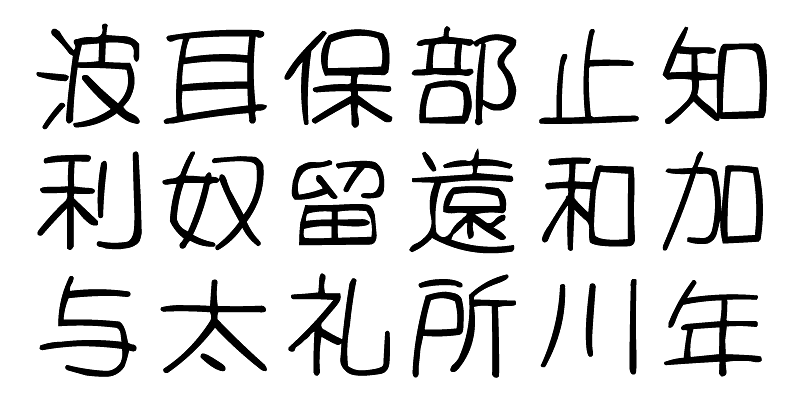
TA Pop Tomo Font Free Download is a vibrant, playful Japanese typeface that captures the cheerful spirit of pop culture design. With its rounded shapes, bold structure, and whimsical personality, this font is ideal for children’s books, anime-inspired branding, game graphics, and any project that calls for a fun, friendly vibe.
TA Pop Tomo brings energy and approachability to your typography with its bubbly forms and balanced readability. Whether you're designing for youth audiences, creating kawaii-style merchandise, or adding personality to digital content, TA Pop Tomo Font Free Download delivers visual impact with a joyful twist.
Its rounded edges and informal feel make it perfect for headings, logos, packaging, and promotional materials where a lighthearted tone is key. The font also pairs well with minimal sans-serifs to create contrast while maintaining a cohesive look.